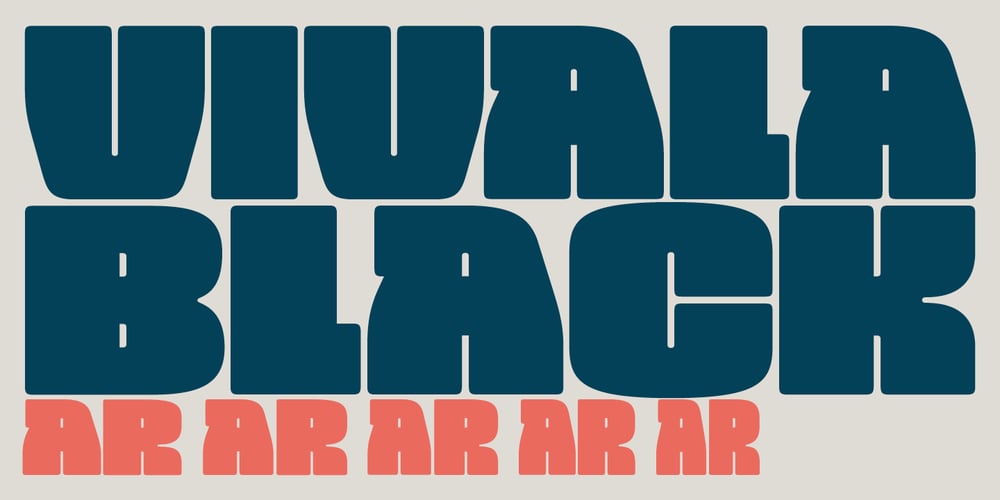
Vivala Black Font Family was designed by Johannes Hoffmann and published by Johannes Hoffmann. Vivala Black contains 5 styles and family package options. The idea was to create a typeface with a high black ratio that would work well in a compact style. The five styles of Vivala Black share similar metrics, so they can be easily substituted for each other in a body of text. OpenType features include ligatures, fractions, ordinals, numerators, denominators and stylistic alternates. Fields of application are posters, magazines, packaging, books, and corporate design.